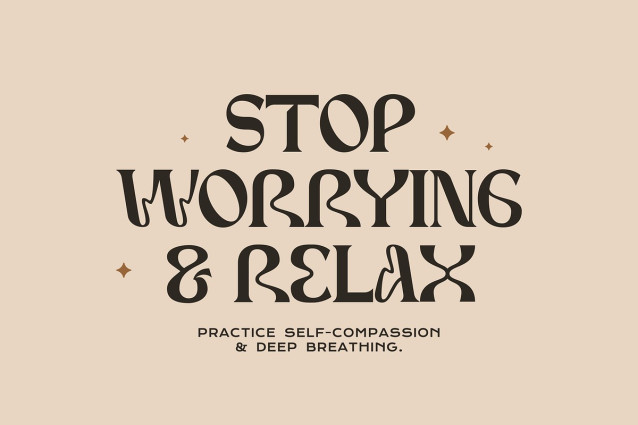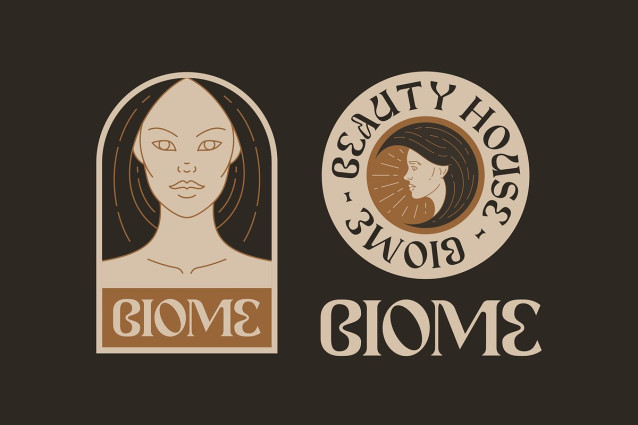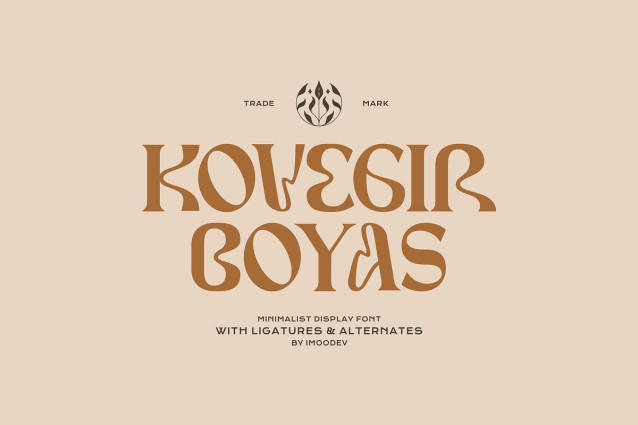
Kovegir Font
Kovegir Font a uniquely elegant and mystical display font that effortlessly blends vintage charm with a modern, free-spirited aesthetic. This typeface is defined by its graceful, flowing letterforms and distinctive character shapes, drawing inspiration from the elegance of art nouveau and the soulful vibe of 70s typography.
Each letter is a work of art, featuring high contrast strokes and beautifully curved lines that create a captivating rhythm. Standout glyphs, stylized unique wavy, and the gracefully curved, give the font a memorable and exclusive personality.
Perfect for boutique branding, beauty labels, lifestyle products, wellness campaigns, and creative startups, this font elevates messaging with sophistication and charm.